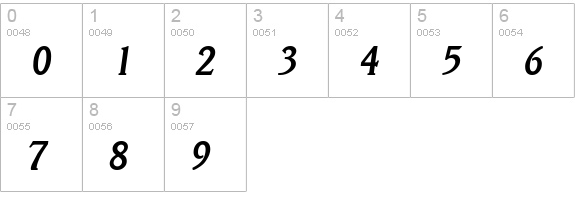
VeracruzSerial-Medium-Italic is a balanced, medium-weight, italic variant in the VeracruzSerial typeface family \xE2\x80\x94 well suited to sub-headlines, navigation, and balanced editorial work.
VeracruzSerial-Medium-Italic font is a sophisticated and elegant typeface that strikes the perfect balance between modernity and classic design. Its sleek and stylish curves exude a sense of refinement, making it ideal for a wide range of design projects. This font features a medium weight with italic styling, adding a touch of flair and sophistication to any text. Whether used for branding, editorial design, or web content, VeracruzSerial-Medium-Italic font will elevate your projects and give them a professional edge. And the best part? VeracruzSerial-Medium-Italic font is available for free download at FontsMarket.com. So you can bring this exquisite typeface into your design arsenal without breaking the bank. Don't miss out on the opportunity to enhance your designs with the timeless beauty of VeracruzSerial-Medium-Italic font. Download it today and elevate your creative projects to new heights.